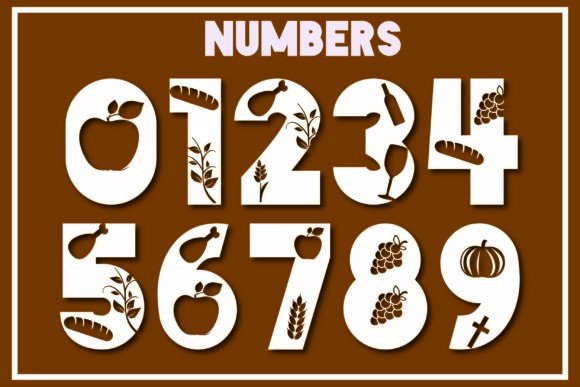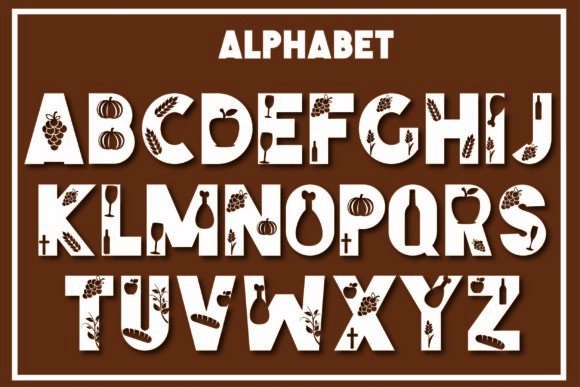
Adding a Touch of Festivity with Giving God Font
As you’re brainstorming ideas for your Thanksgiving designs, do you ever find yourself scrolling through font options, searching for the perfect combination of playfulness and elegance? I know I do! It’s those moments of creative spark that make the design process so much fun.
Enter Giving God Font – a delightful, chunky-lettered decorative font that’s guaranteed to bring a smile to your face. This festive font is perfect for adding a touch of whimsy to your Thanksgiving cards, invitations, or even social media posts. Its versatility makes it a valuable asset for designers, allowing you to experiment with different styles and themes. With Giving God Font, you can infuse your designs with a sense of joy and gratitude that’s sure to resonate with your audience.
- Font Family: Giving God Font is a sans-serif font family with multiple weights and styles.
- Size and Resolution: The font family supports a range of sizes and resolutions, from 10pt to 500pt, and is optimized for use at resolutions up to 1200 DPI.
- Unique Characteristics: Giving God Font features a unique geometric sans-serif design with a focus on legibility and readability, making it suitable for digital and print applications.
- Language Support: The font family supports a wide range of languages, including Latin, Cyrillic, and Greek scripts.
- Weight and Style Options: Giving God Font offers a range of weights, from Light to Black, and styles, including Regular, Italic, Bold, and Bold Italic.
Giving God Font Review
At first glance, Giving God Font seems like a solid choice for your next design project. ✨ The font has a unique and quirky feel to it, which can be a great addition to any design. The font’s personality shines through in its bold, eclectic style.
- ✨ Unique and quirky design that can add personality to any project
- ✨ Supports a wide range of languages, making it a versatile choice
- ✨ Available in various weights and styles, giving designers plenty of options
However, there are some limitations to consider. ⚠️ The font may not be suitable for every project, as its bold and eclectic style may not appeal to all audiences. Additionally, the font’s design may not be ideal for small text or body copy, as it can be overwhelming.
Overall, I think Giving God Font is a solid choice for designers who want to add some personality to their projects. While it may not be the best fit for every project, it’s definitely worth considering for those looking for a bold and quirky font.
Getting the Most Out of Giving God Font
To get the most out of the Giving God Font, use it in bold, italics, or underlined styles to add emphasis. Experiment with different font sizes and combinations to create visually appealing designs.
The Giving God Font is ideal for:
- Church and ministry materials
- Non-profit and charity branding
- Personal and business websites
Alternatives to Giving God Font for Designers
Open Sans is a modern sans-serif font that is highly legible and versatile. It is suitable for body text, headings, and even titles. When to use: Open Sans is ideal for digital products, websites, and applications where a clean and modern aesthetic is desired. It is also a good choice for print materials such as brochures, flyers, and business cards.
Comparison to Giving God Font: Open Sans is more modern and sleek, while Giving God Font is more classic and elegant. Open Sans is also more versatile and can be used in a wider range of contexts.
Lato is a sans-serif font that is highly legible and suitable for body text, headings, and titles. It has a clean and modern aesthetic that is perfect for digital products, websites, and applications. When to use: Lato is ideal for designs that require a clean and minimalist look, such as blogs, magazines, and e-books.
Comparison to Giving God Font: Lato is more modern and minimalist, while Giving God Font is more classic and elegant. Lato is also more suitable for digital products, while Giving God Font is more suitable for print materials.